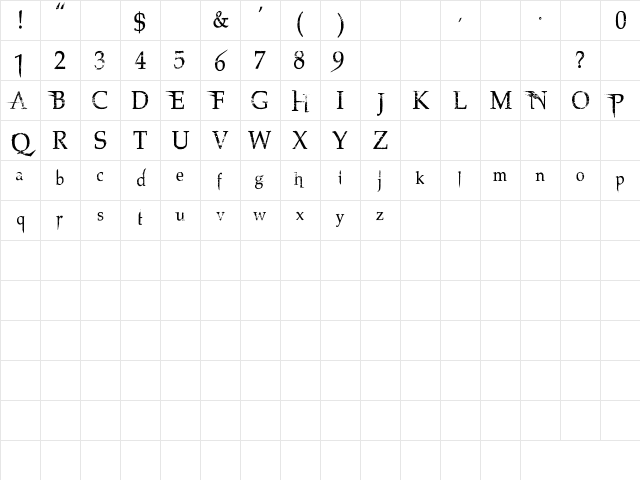
Northwood High Regular
Complete Northwood High Regular glyph index. Displaying only characters natively supported by Northwood High Regular font.
Design Context for Northwood High
Northwood High echoes the hand-painted signage and woodblock typography of the American frontier, with a warm, rugged personality.
Font Pairing: Combine Northwood High with a simple slab or neutral sans - period-accurate companions reinforce the vintage feel without competing for attention.
Pro Tip: Use Northwood High for short, impactful bursts of text - it shines in poster headlines and product names rather than extended copy.